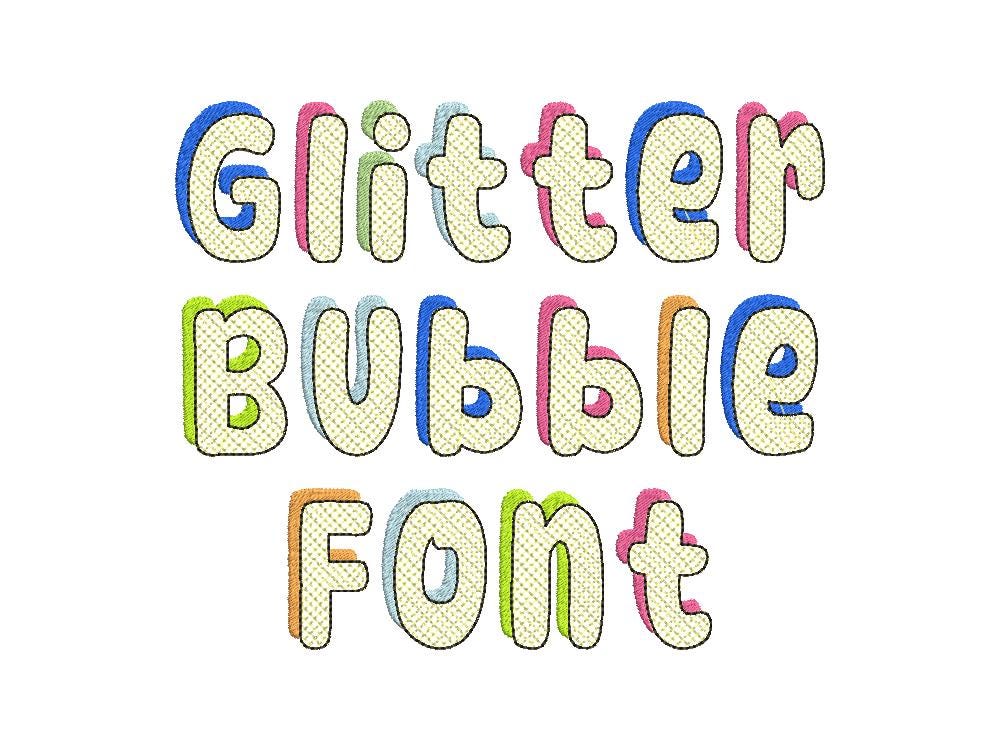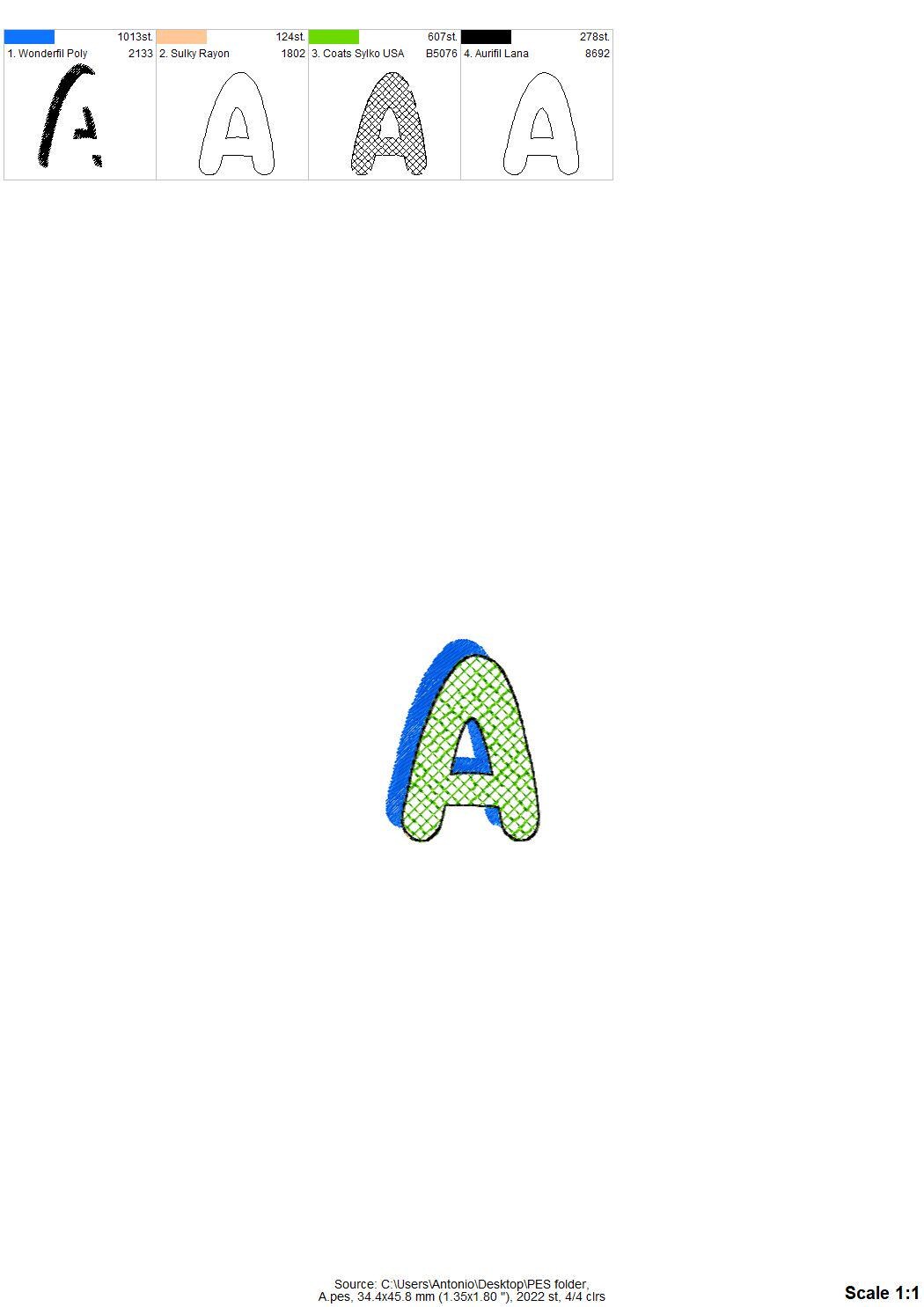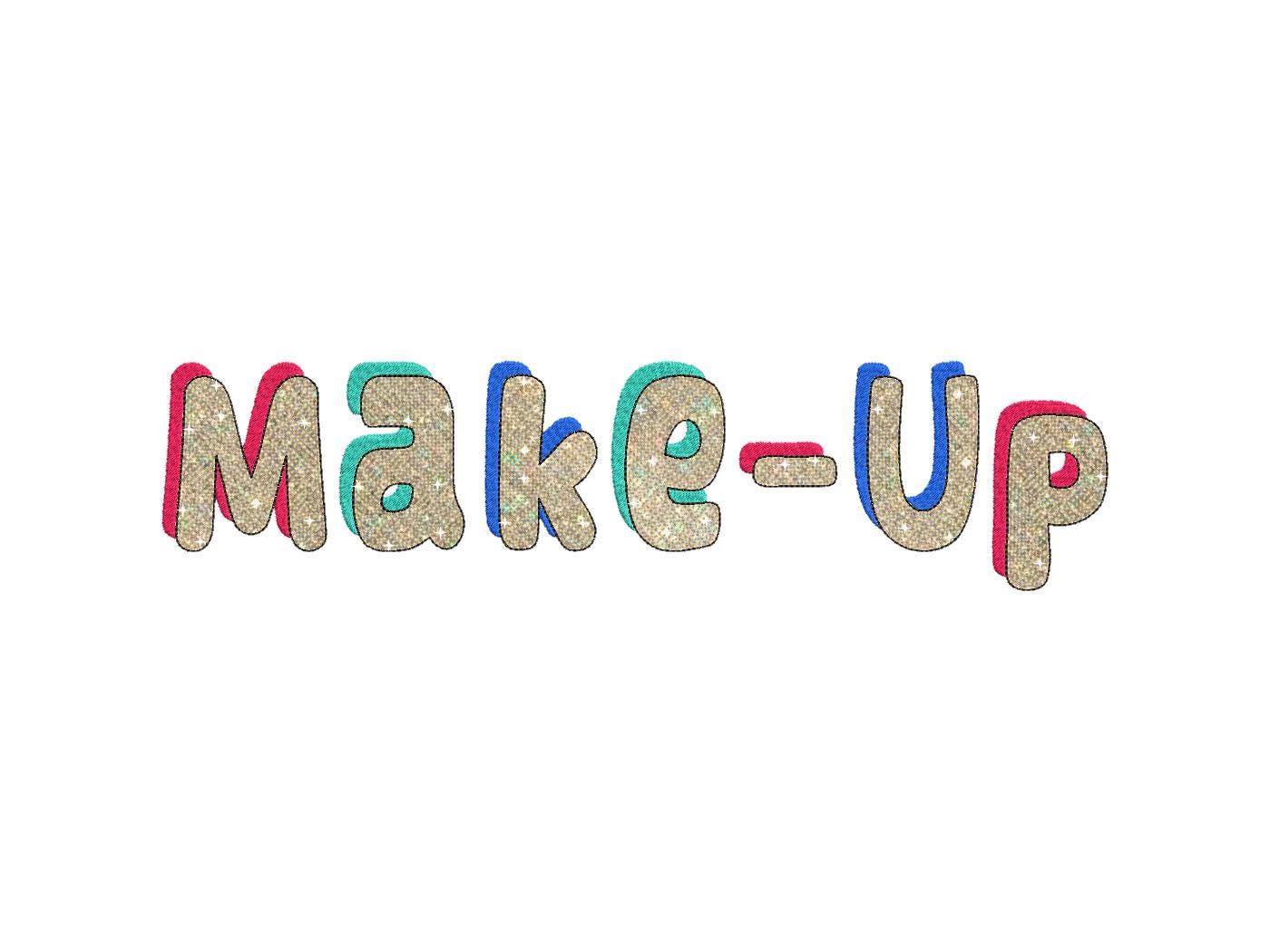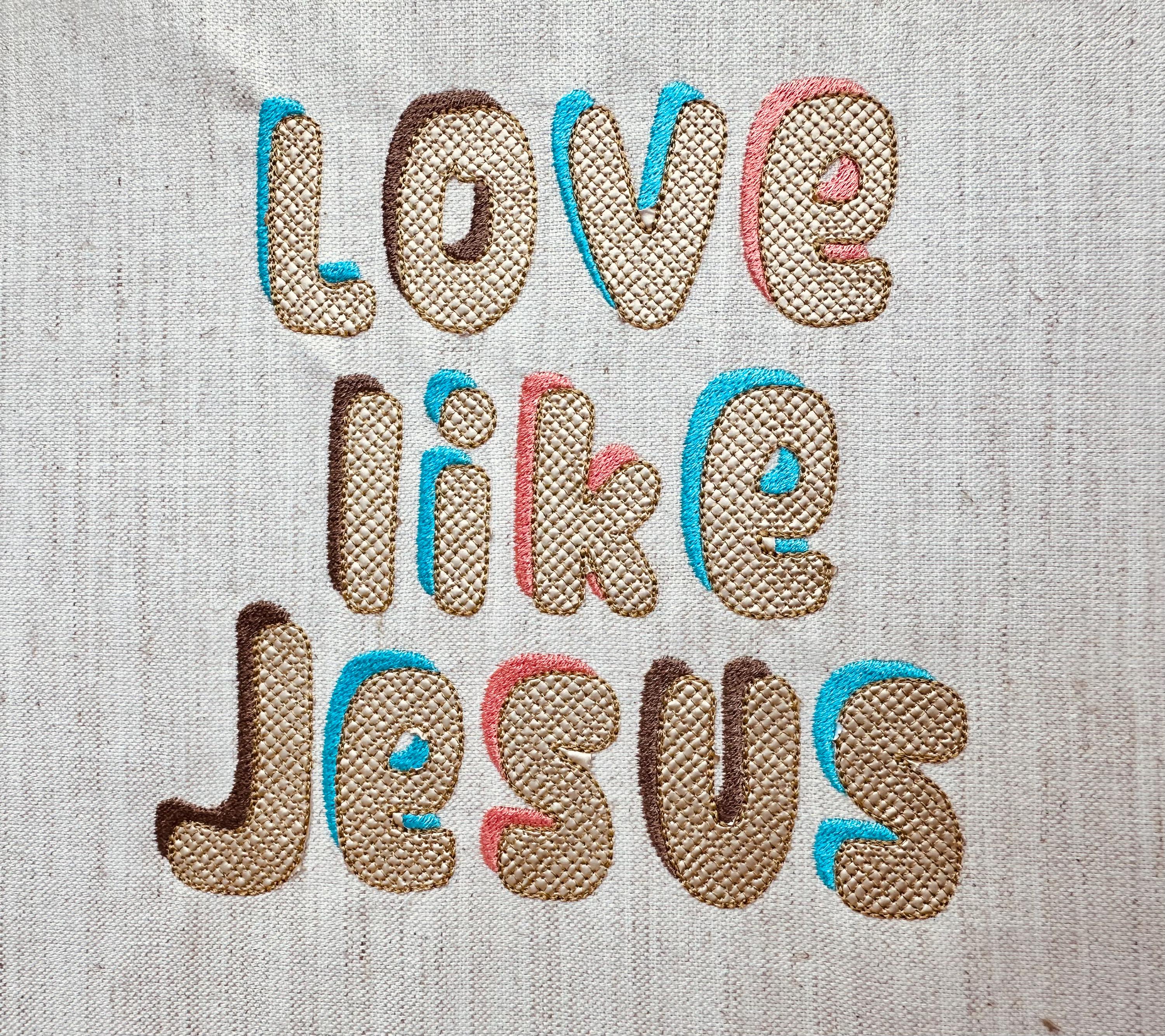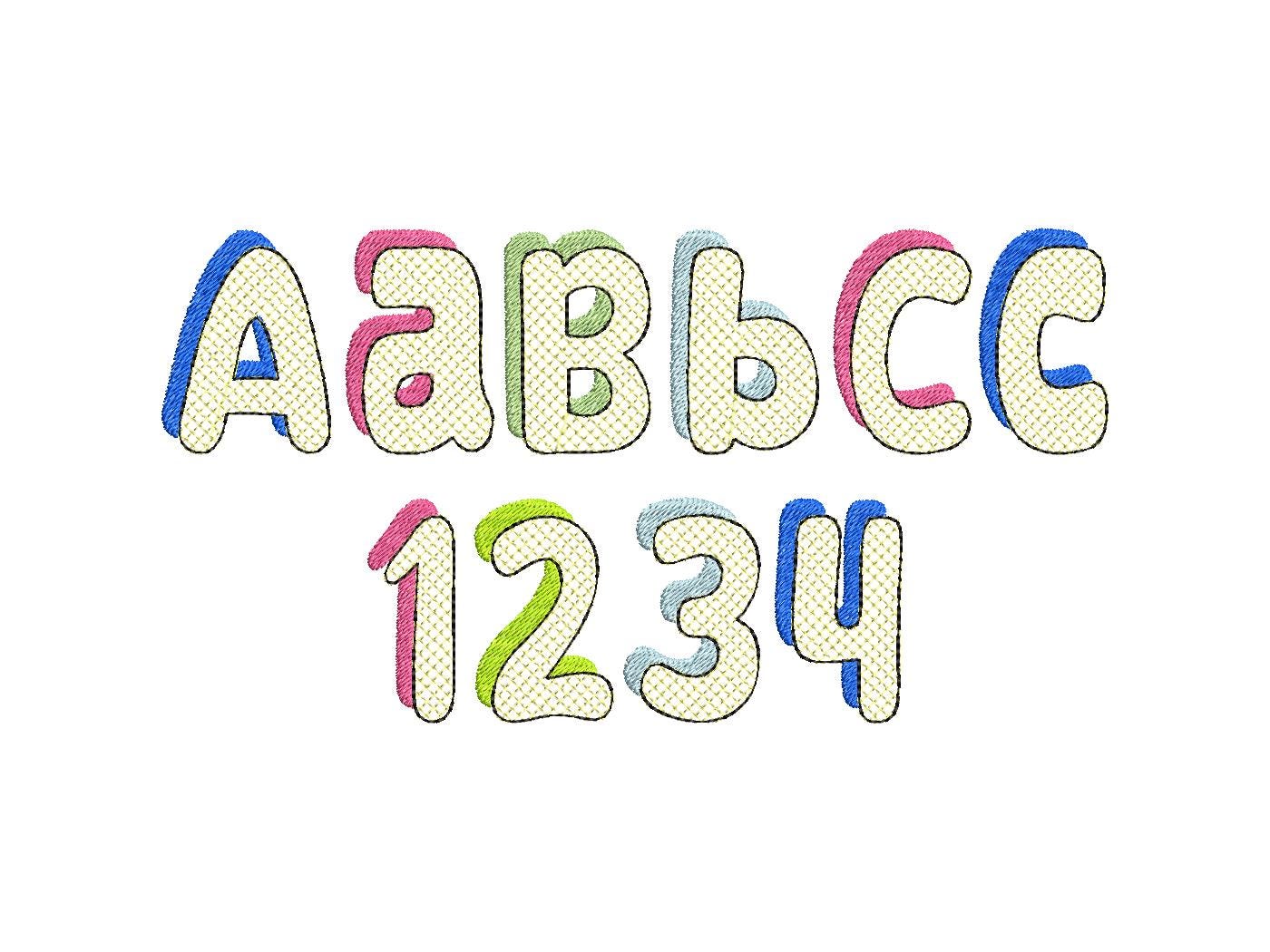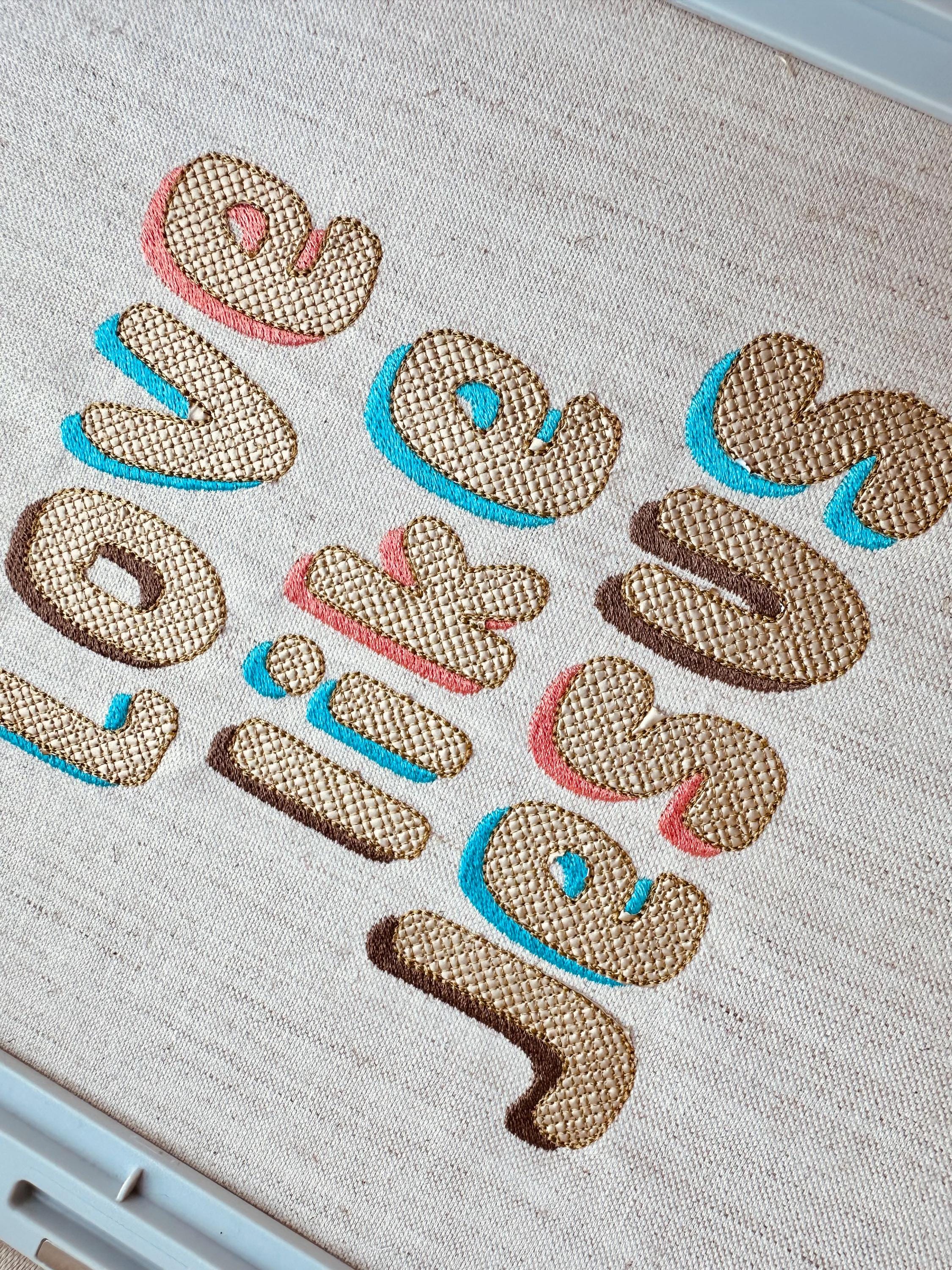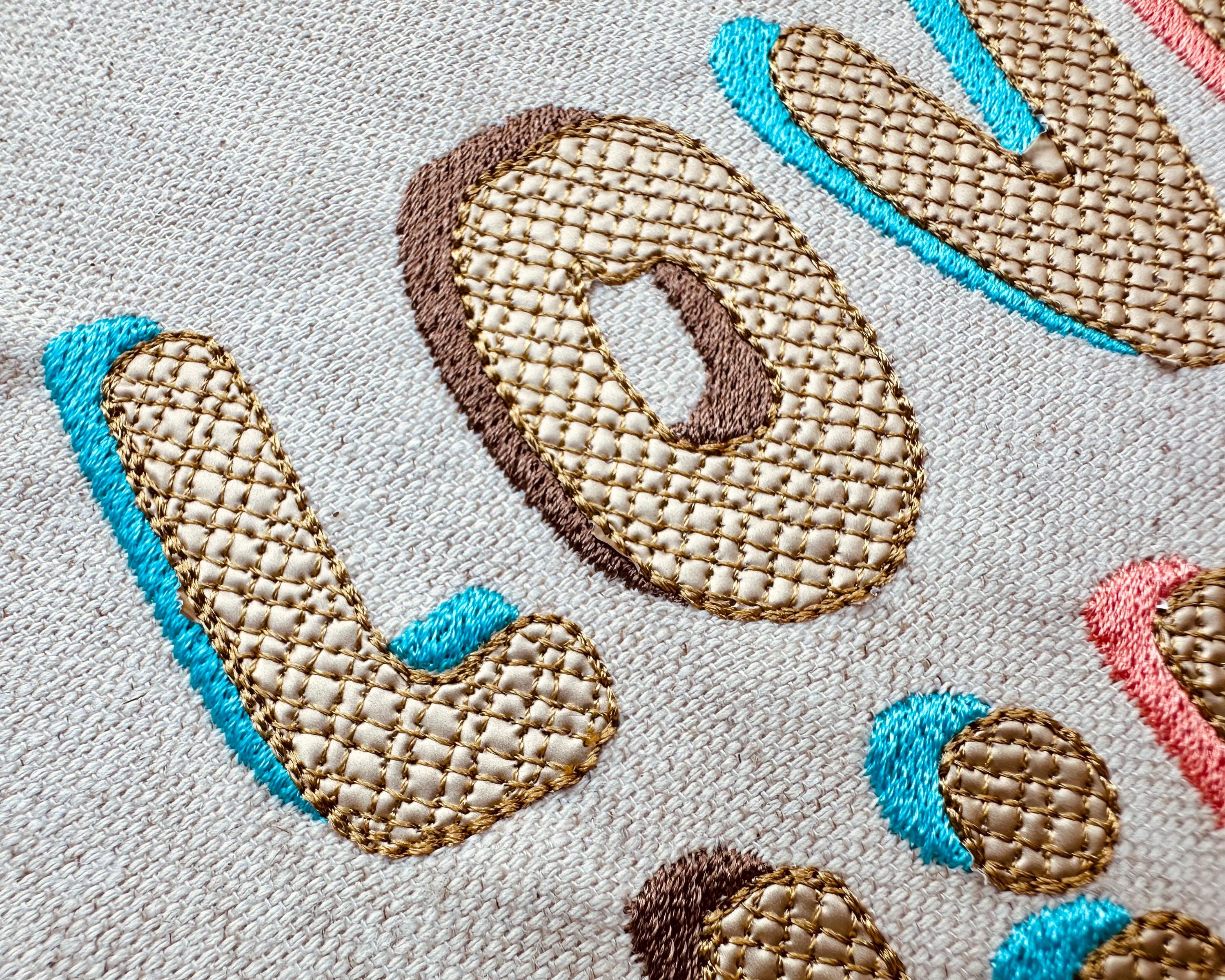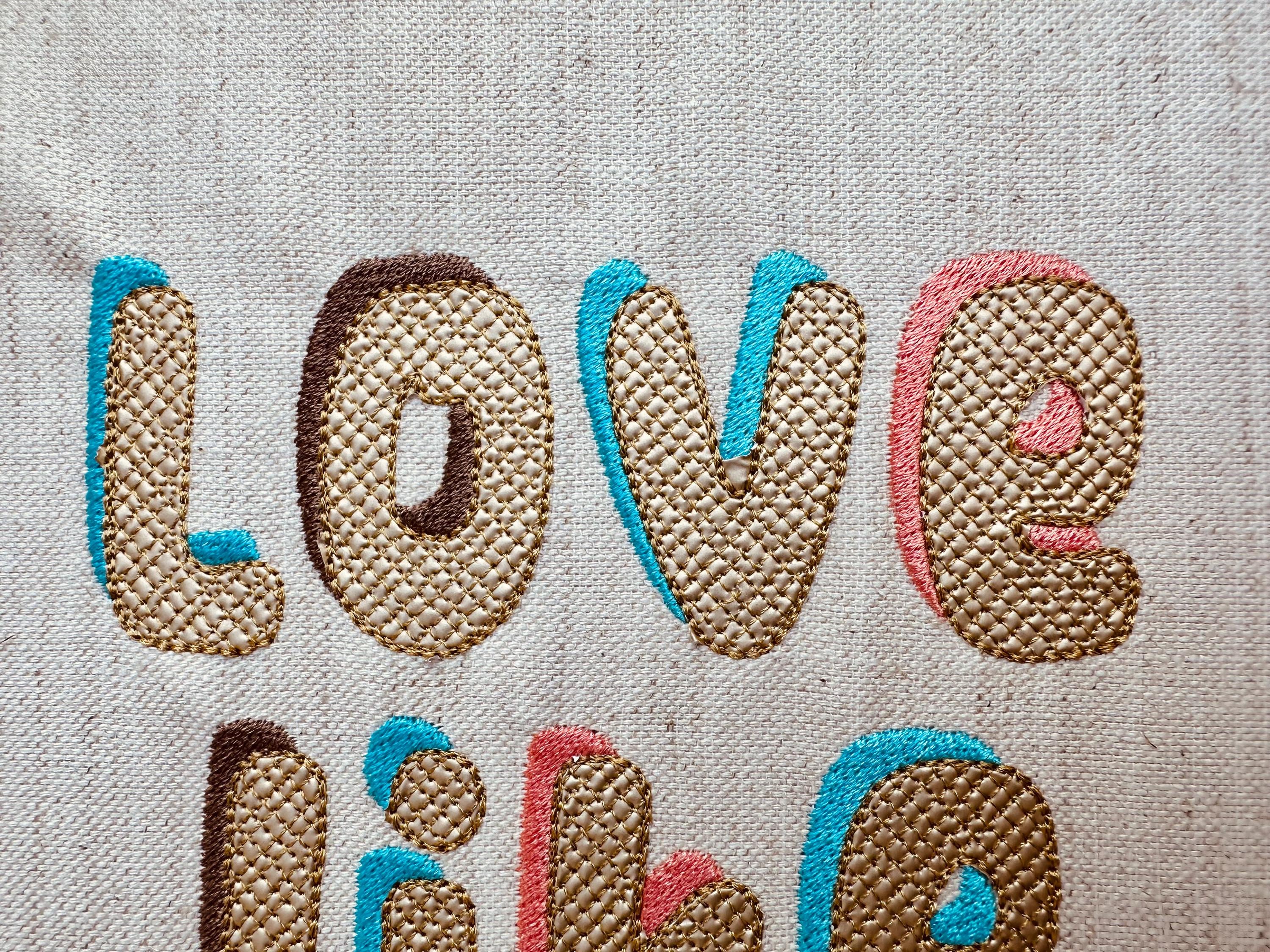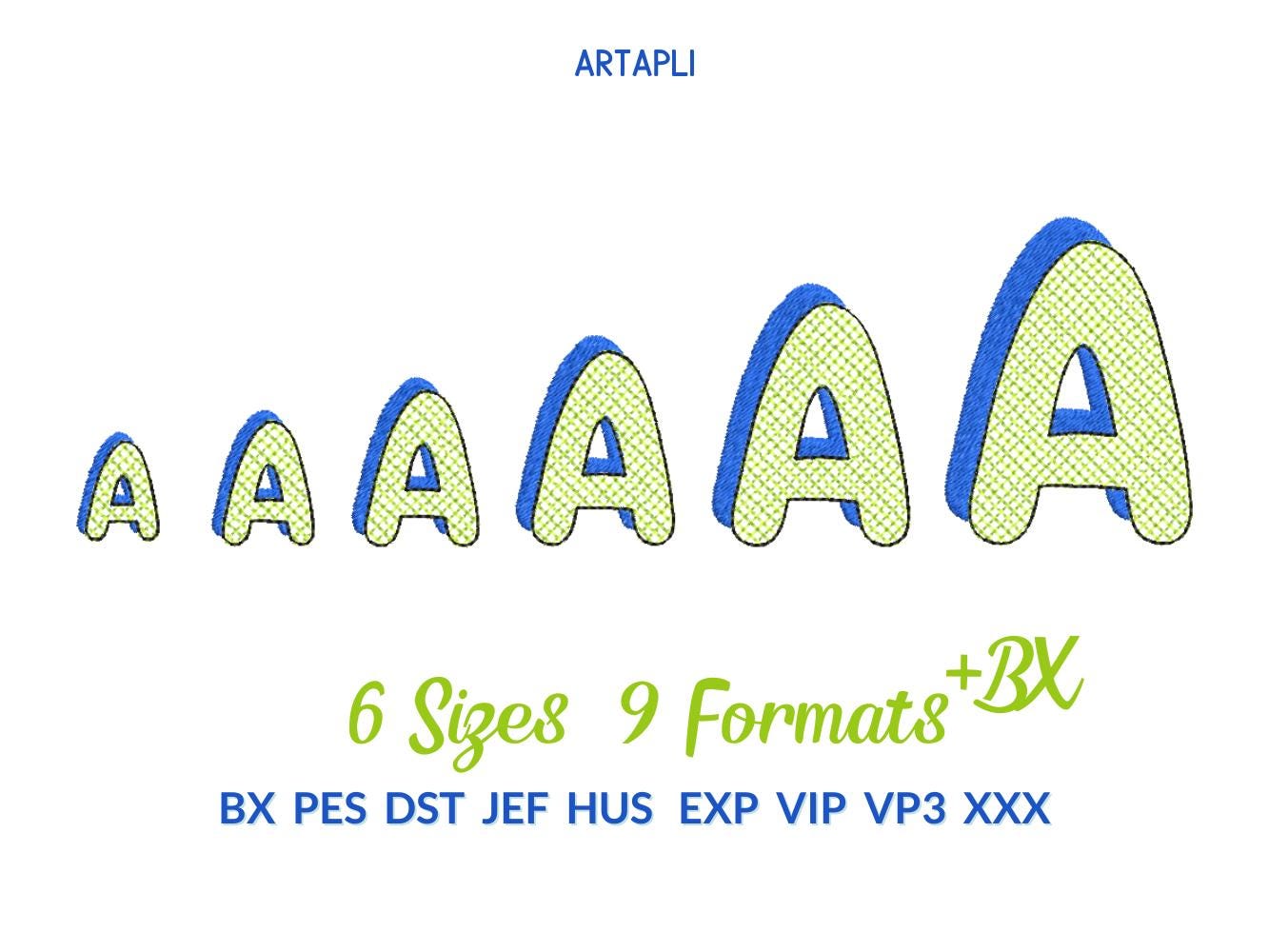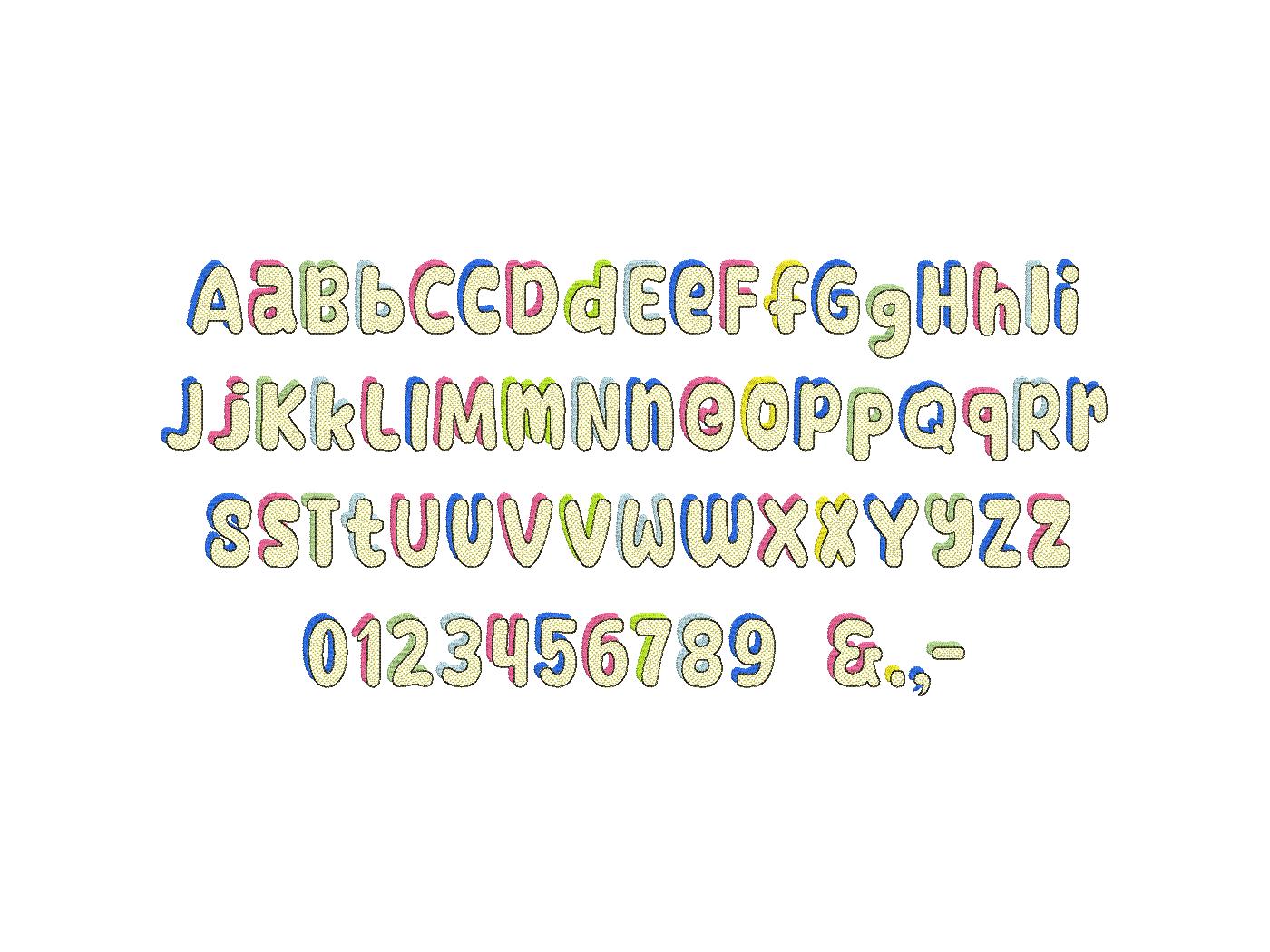
Glitter Bubble Shadow Font HTV glitter monogram sparkle effect alphabet letters machine embroidery designs mini sizes 0.9 up to 2.8 inches and BX
Entire alphabet uppercase and lowercase letters Aa-Zz, numbers 0-9, and punctuation.